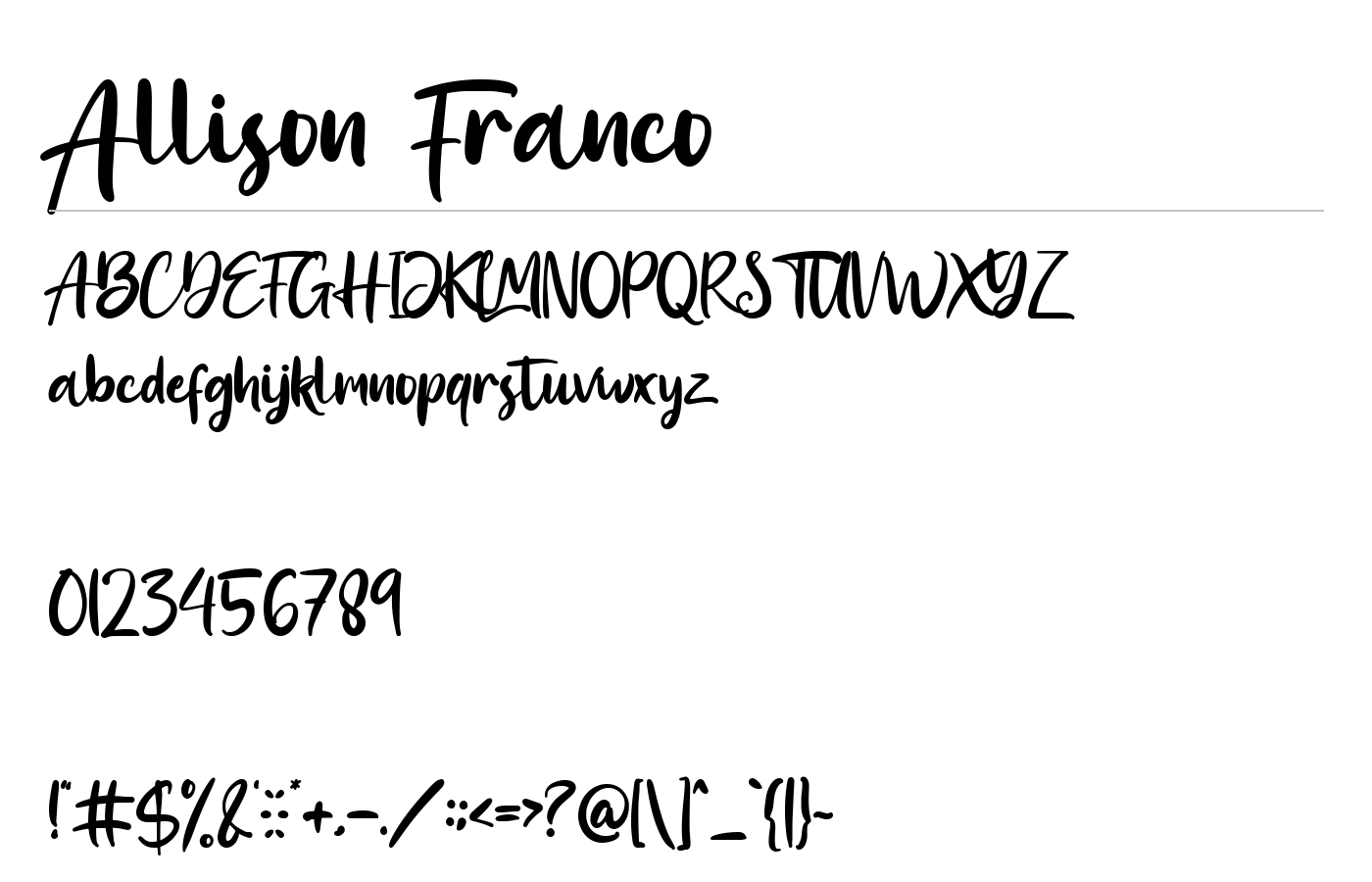
Allison Franco is a lively and modern handwritten script font featuring smooth, flowing strokes and a casual yet elegant feel. It offers both uppercase and lowercase letters with a slightly playful touch, making it ideal for creative projects, branding, invitations, and social media graphics that want to convey warmth and personality. This font stands out with its natural, friendly appearance, perfect for adding a personal touch while maintaining readability.
Allison Franco Font
About Allison Franco Font